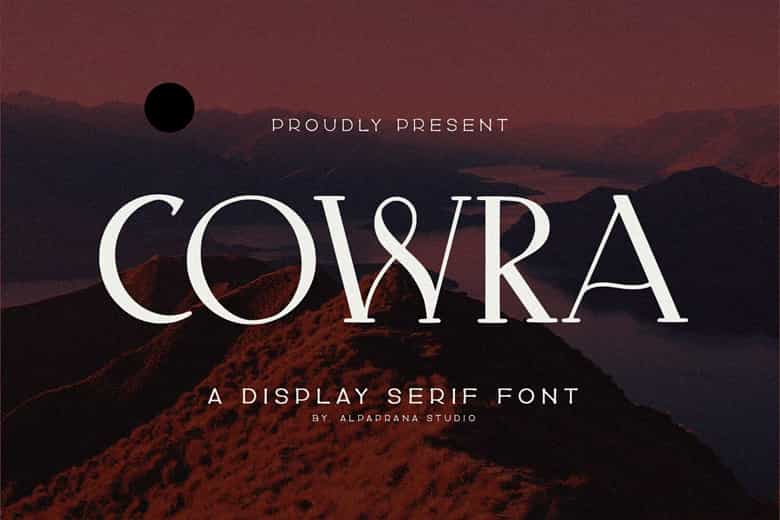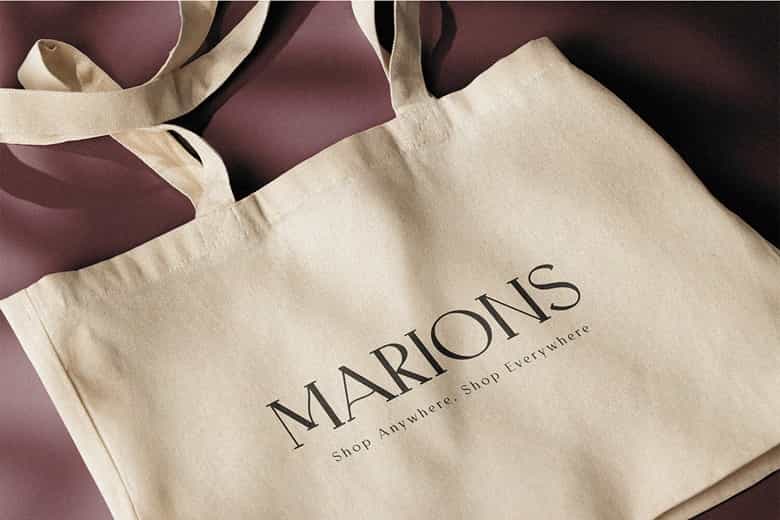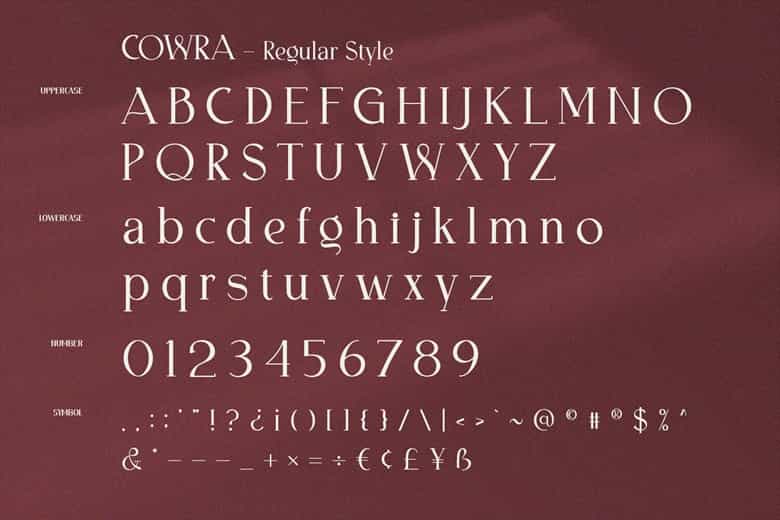
Cowra is a display serif typeface with classy as well as contemporary taste. It will be perfectly suitable for Branding, Logo Design, Lettering, Logotype, Clothing, Posters, magazines, packing, posters, shopping bags, t-shirts, book covers, photograph, special events and any other designs.